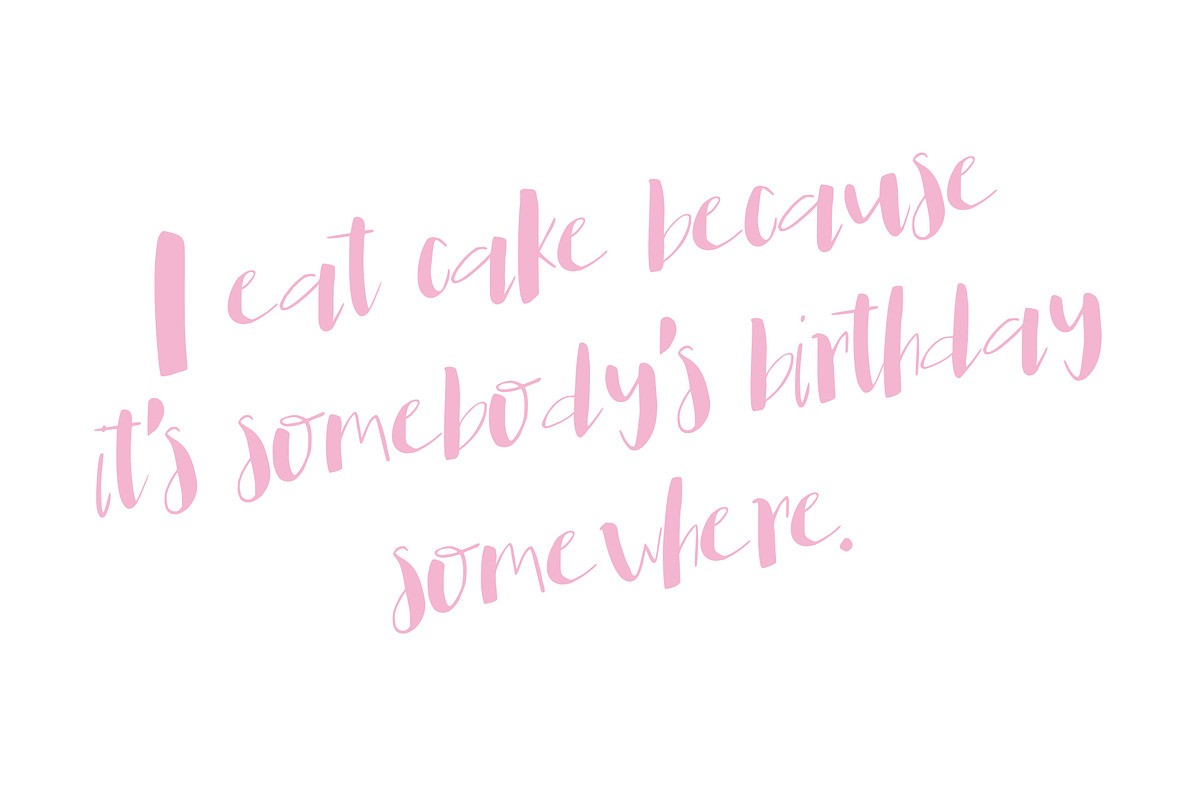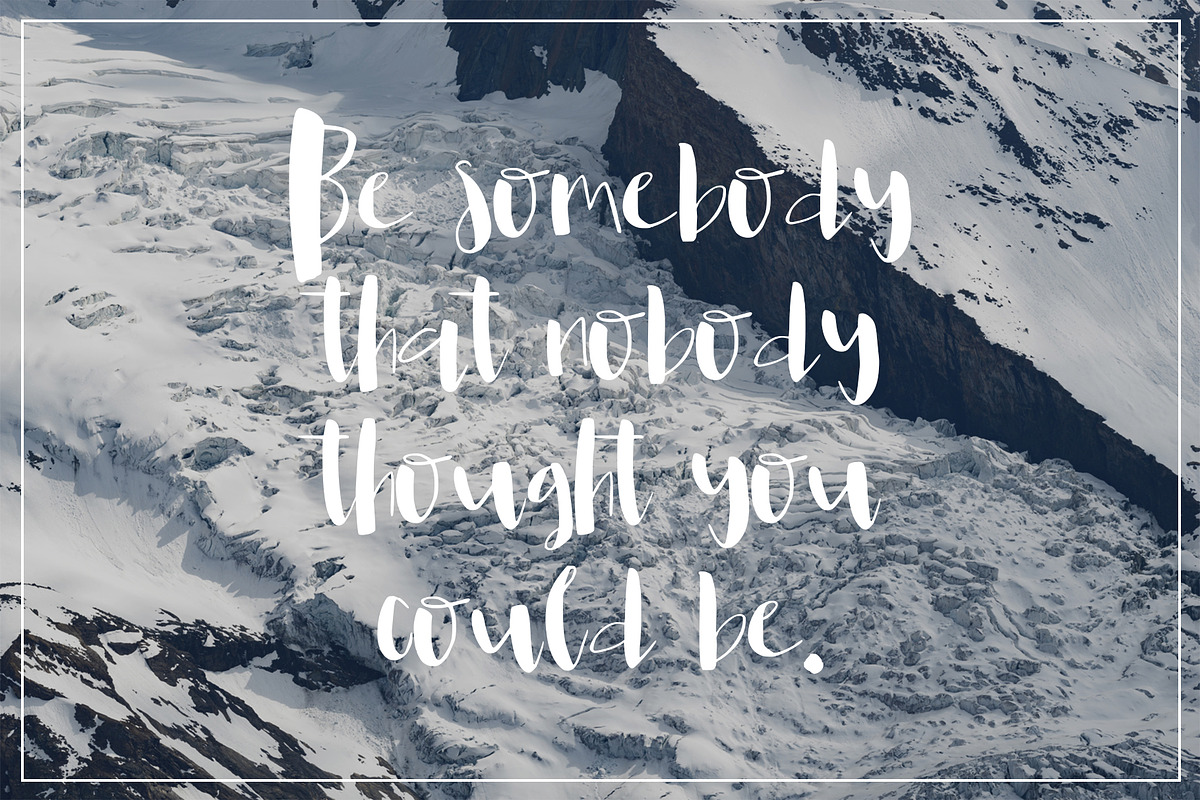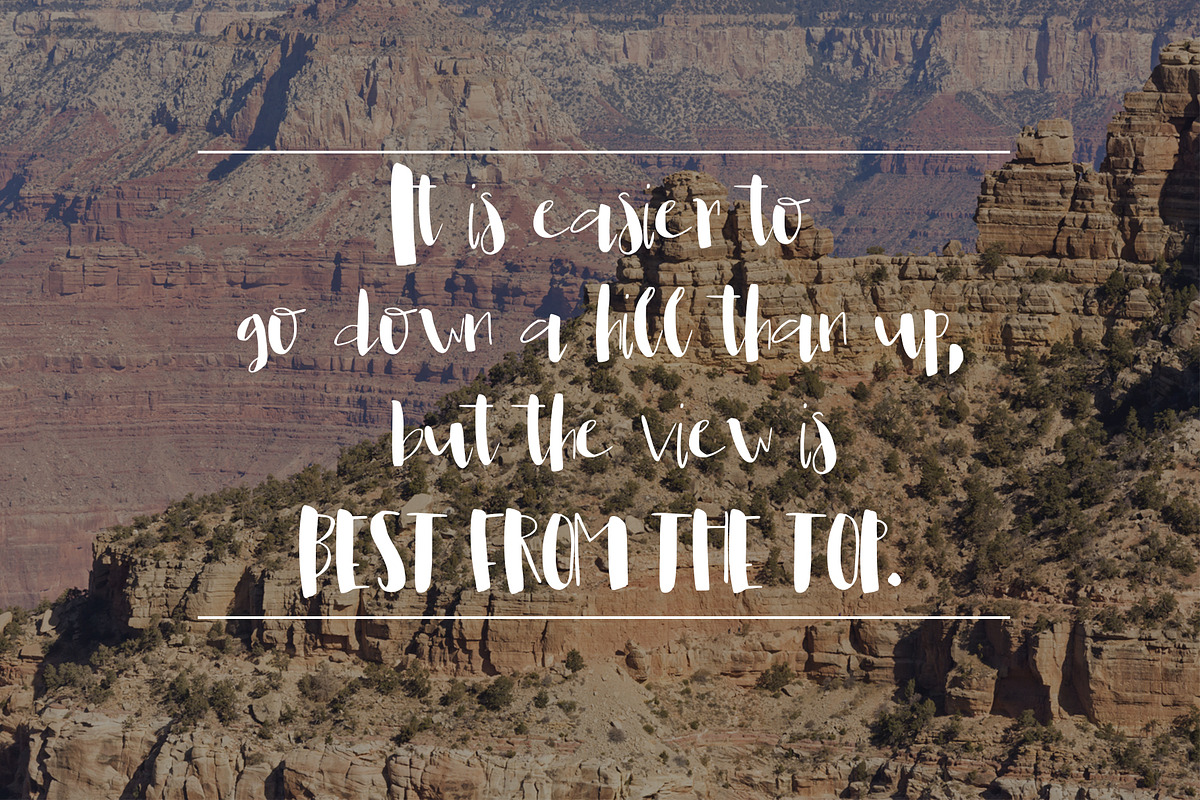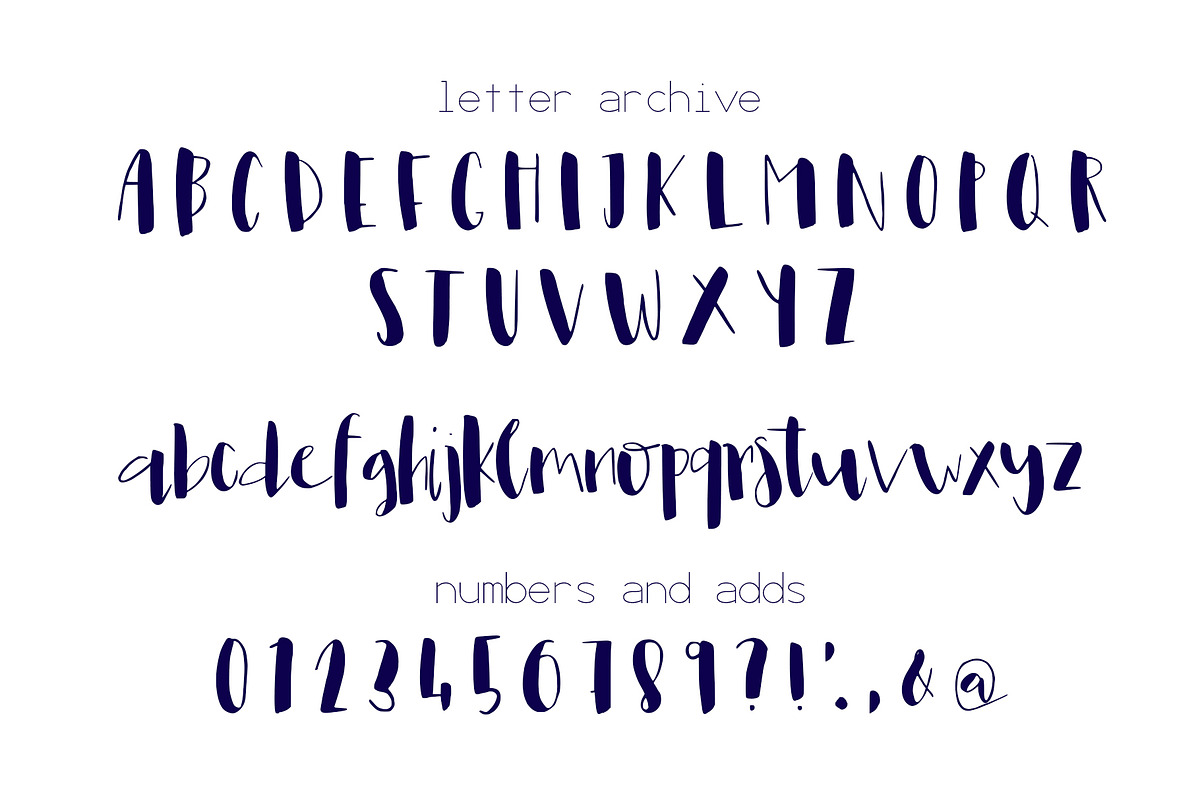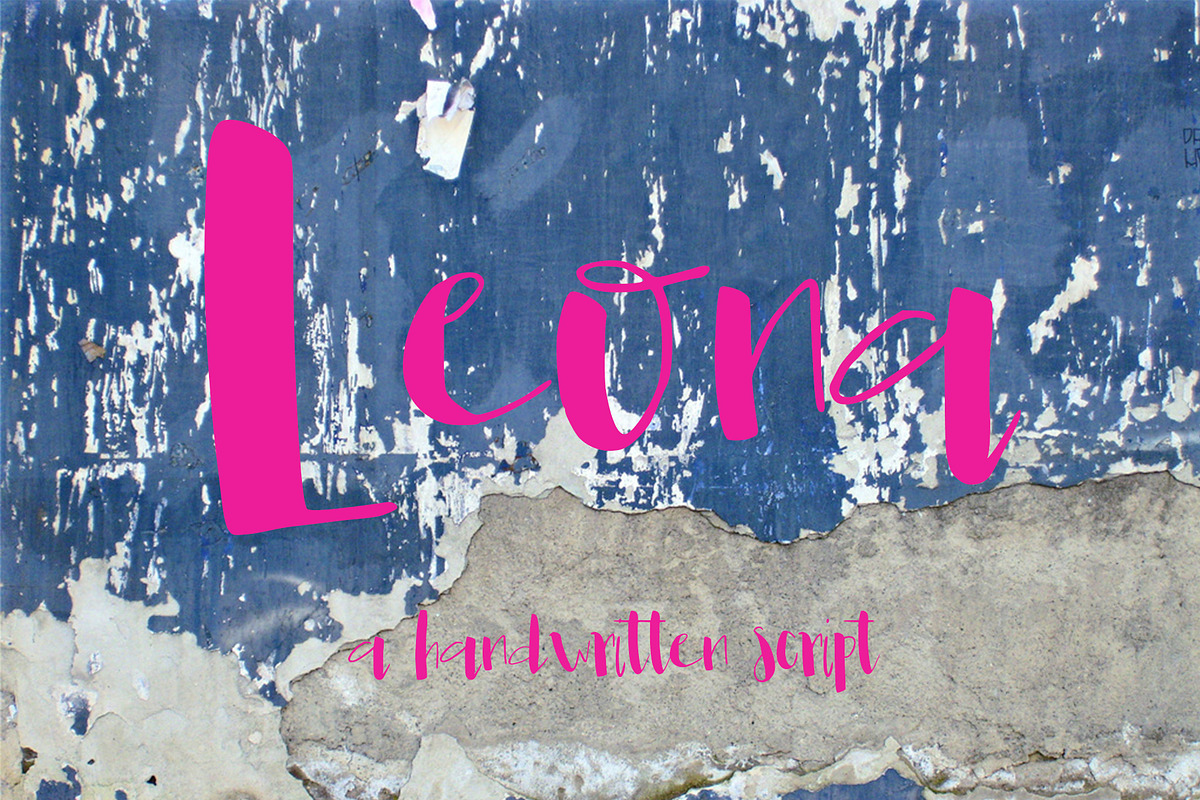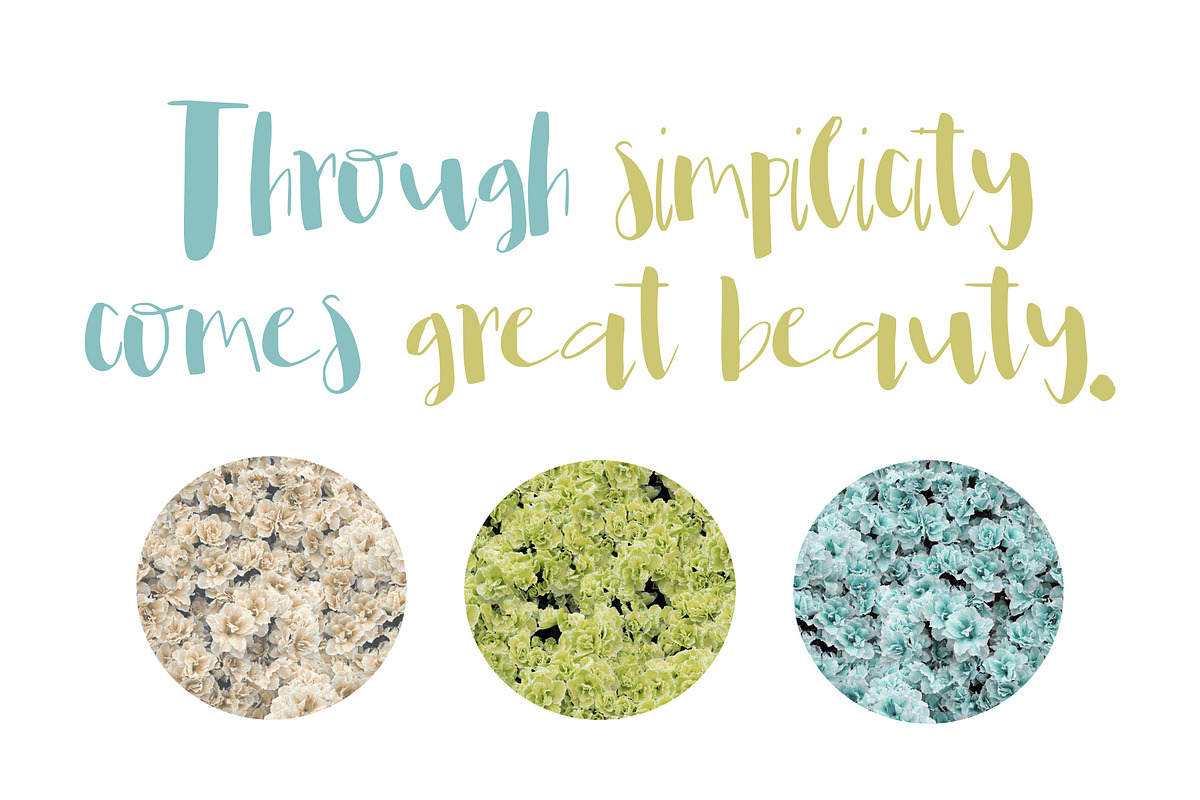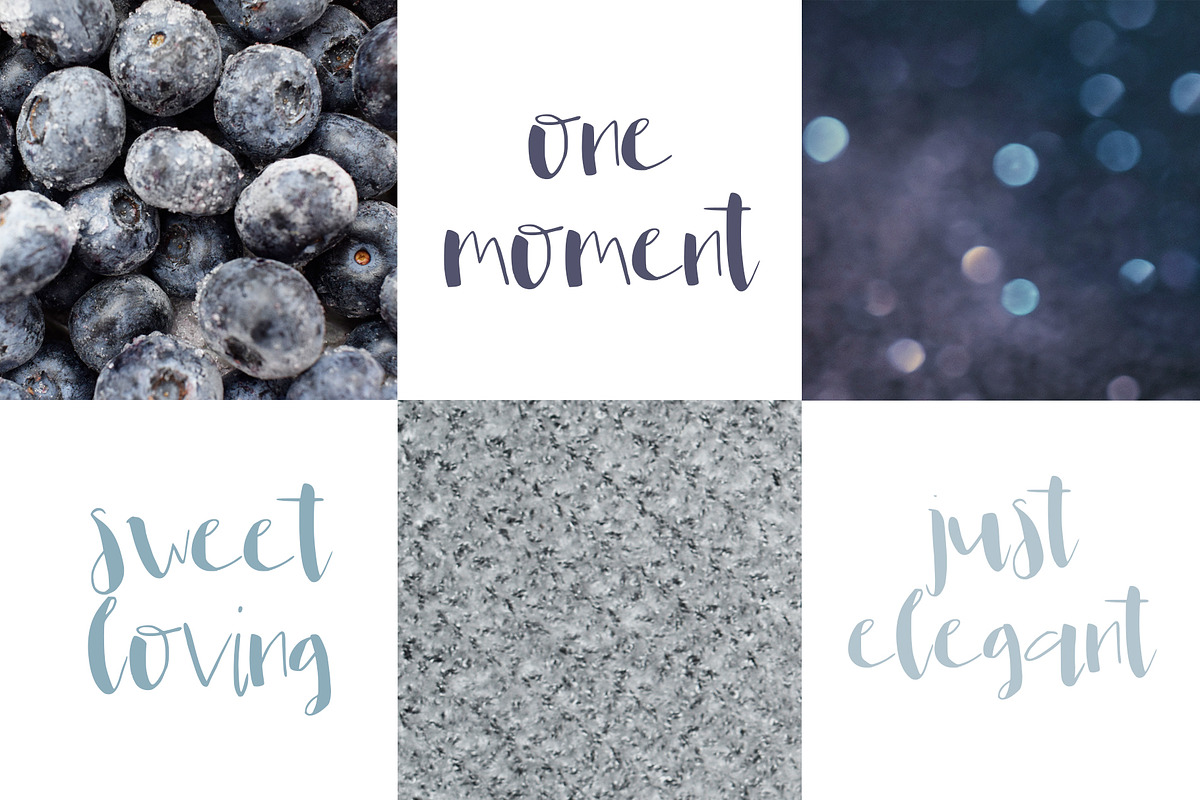
Leona Font
Introducing Leona, a freestyle handwritten font.💗 Perfect for any calligraphic and logo designs, birthday and wedding invitations.
- Leona font contains upper & lowercase characters, numbers and punctuations.